Extrema Point
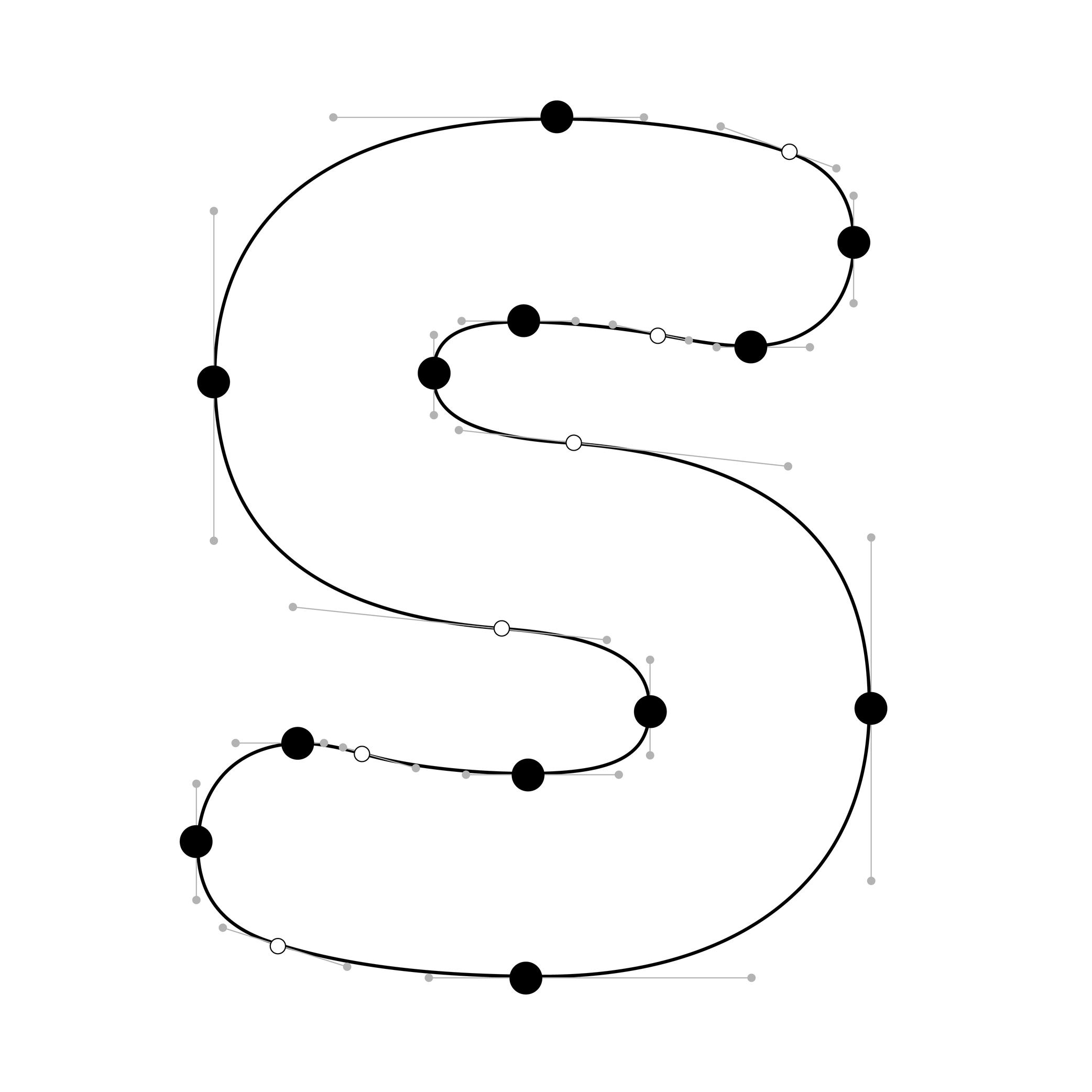
Illustration: Words of Type. Typeface in use: Knowledge Rounded, designed by Lisa Huang, 2024.
In digital fonts, curves are defined by at least two end points (also called “on-curve points” or “nodes”) and one or more “off-curve points” (also called “handles”), which control the shape and tension of the curve.
Extrema points are the highest, lowest, leftmost, or rightmost points on a curve. These can be recognised by their associated handles, which align strictly horizontally or vertically.
FONT ENGINEERING HINT
Hints can only attach to extrema points. For proper rasterization (conversion of vector shapes into pixels), it is therefore essential to ensure these points are present and correctly placed.
NOTE
Since PostScript hinting doesn’t apply to diagonal stems, it is debated whether vertical extrema are necessary in italic shapes.